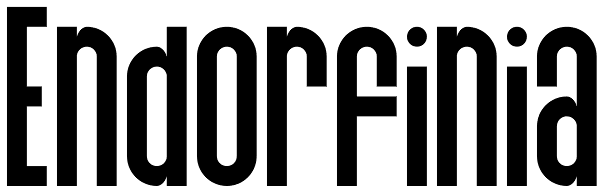
Endorfinia
Endorfinia is a clean and geometric sans serif with a very high x-height. Smooth looking for both small amounts of text, or headlines/logos
Endorfinia Font